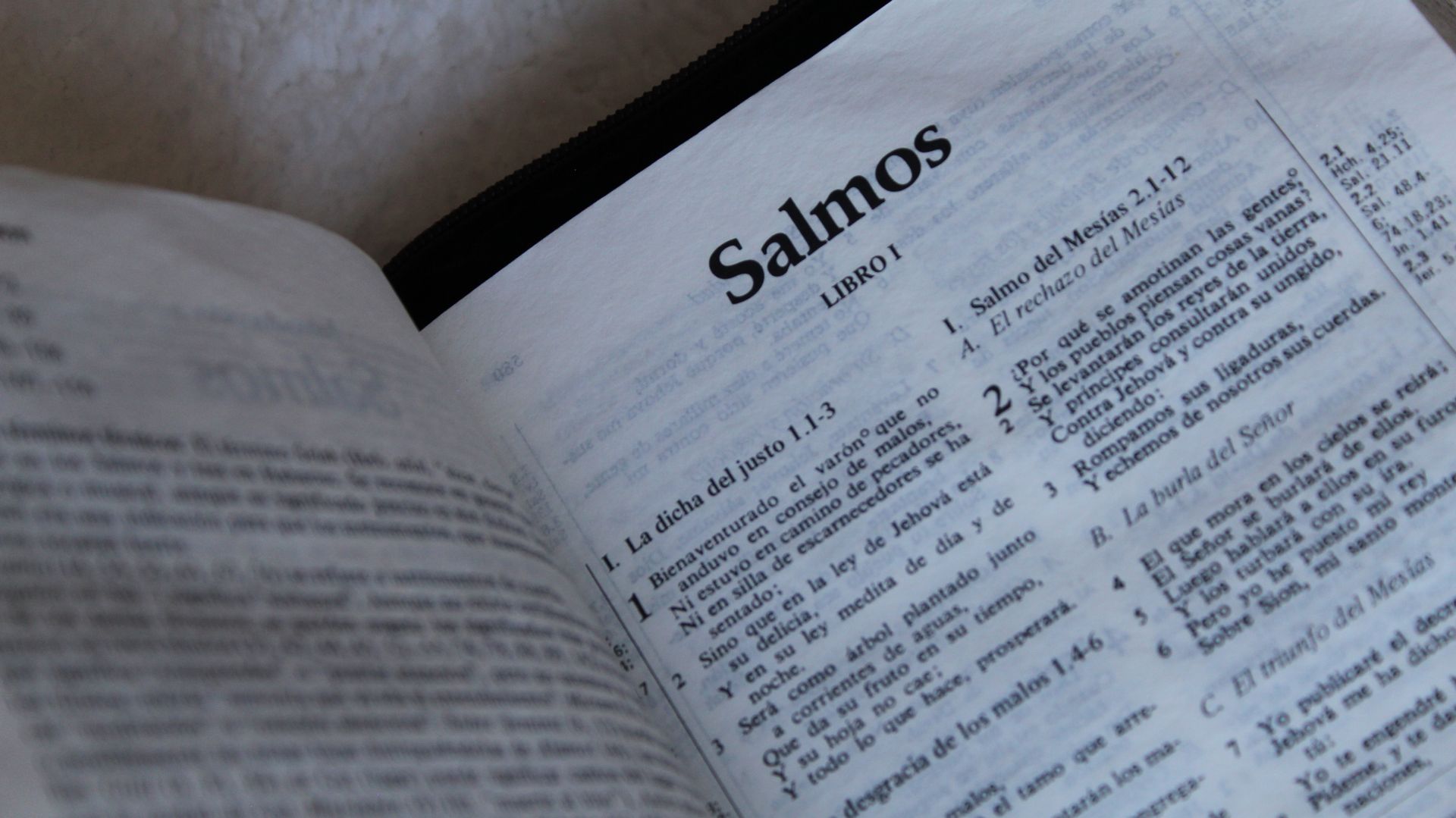
Italic font style in HTML is a great way to add emphasis to your text without making it too bold. You can achieve this by using the `` tag.
To use the `` tag, simply wrap your text in the opening and closing tags: `italic text`. This will render your text in italics.
There are several ways to use the `` tag, including nesting it inside other tags to create more complex layouts.
What is Italic Font Style
Italic font style is a way to present text in a cursive and less horizontal space-consuming way. Italic font faces are generally cursive in nature.
The font-style property in CSS sets whether a font should be styled with a normal, italic, or oblique face from its font-family. Italic font faces are usually used when no italic version of the face is available, and one classified as oblique is used instead.
The three keywords for font-style are normal, italic, and oblique. The normal keyword selects a font that is classified as normal within a font-family. The italic keyword selects a font that is classified as italic, and if no italic version is available, one classified as oblique is used instead.
Oblique font faces are usually just sloped versions of the regular face. The oblique keyword selects a font that is classified as oblique, and if no oblique version is available, one classified as italic is used instead. If an angle is specified, it will be used to slant the text.
Here are the three font-style keywords with their corresponding behaviors:
It's worth noting that large sections of text set with a font-style value of italic may be difficult for people with cognitive concerns such as Dyslexia to read.
Examples and Usage
In HTML, you can add personality and emphasis to a sentence by using italics, which is particularly useful in blogs and articles. This can help draw attention to key phrases or words.
For e-commerce websites, italics can be used to highlight product codes or legal notes in small print. In education platforms, italics are often used to mark foreign terms or citations.
Here are some real-world examples of italics in action:
- Blogs and Articles: Add personality and emphasis to a sentence.
- E-Commerce: Highlight product codes or legal notes in small print.
- Education Platforms: Mark foreign terms or citations.
- Legal Pages: Note specific laws, cases, or phrases.
- Emails and Notifications: Add tone to soft warnings or help text.
Examples of Usage
In blogs and articles, italics are used to add personality and emphasis to a sentence, making the content more engaging and readable. It's a simple yet effective way to convey tone and style.
For e-commerce sites, italics are used to highlight product codes or legal notes in small print, providing essential information to customers. This is especially useful for websites that need to comply with specific regulations.
In education platforms, italics are used to mark foreign terms or citations, helping students and researchers to identify and understand complex concepts. This is a great way to add context and clarity to educational content.
Italics are also used in legal pages to note specific laws, cases, or phrases, providing a clear and concise way to present complex information. This is particularly useful for websites that need to provide detailed legal information.
In emails and notifications, italics are used to add tone to soft warnings or help text, making the content more approachable and user-friendly. This is a great way to convey a sense of urgency or importance without being too pushy.
Here are some real-world examples of where italics are used in HTML projects:
- Blogs and articles
- E-commerce sites
- Education platforms
- Legal pages
- Emails and notifications